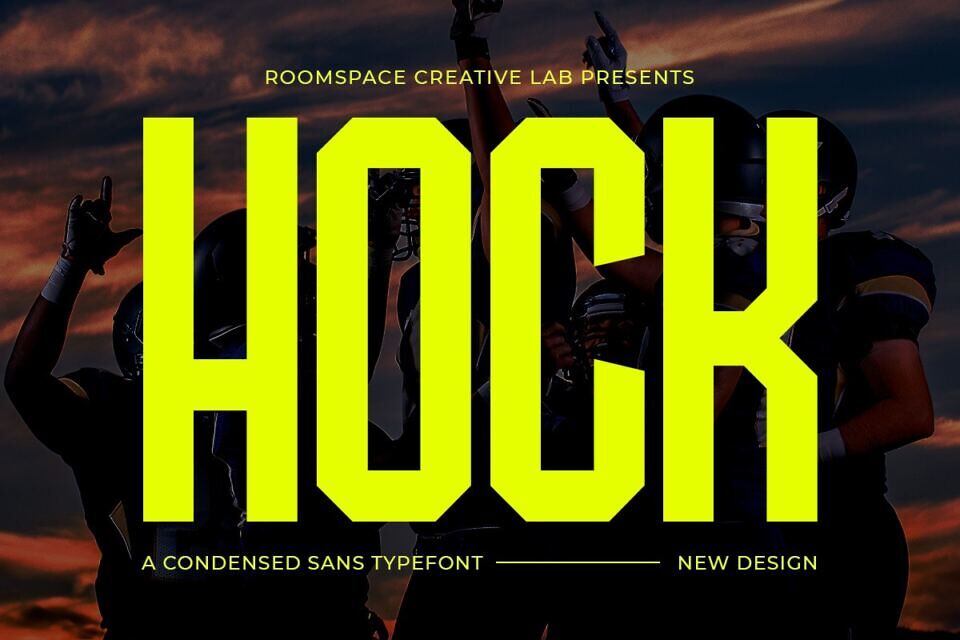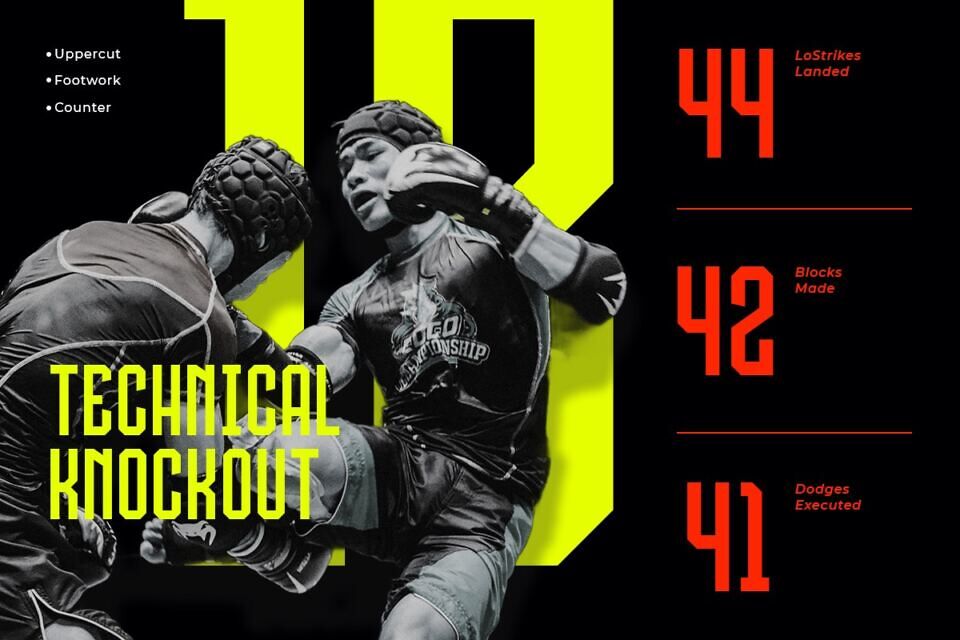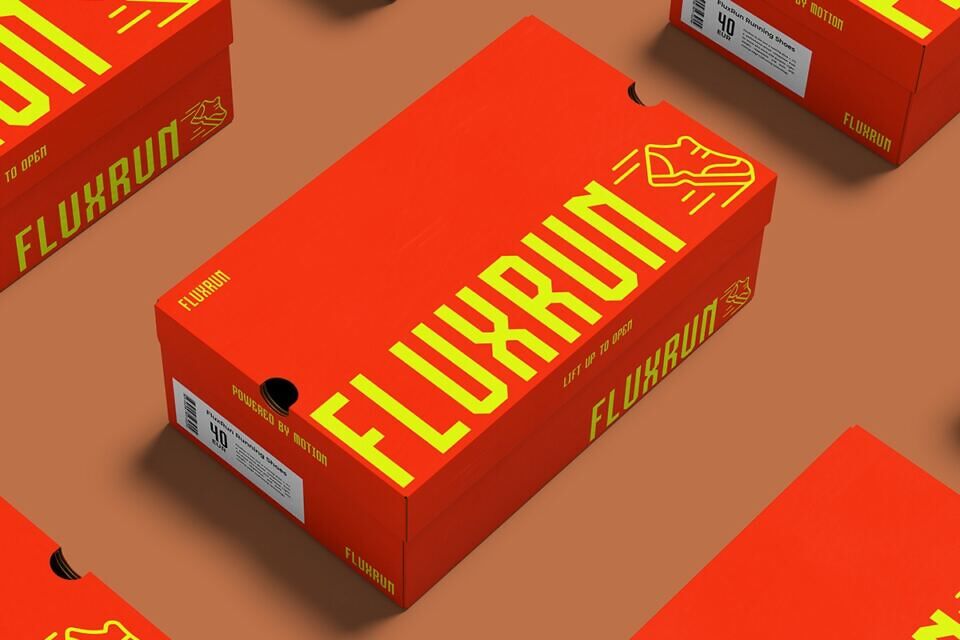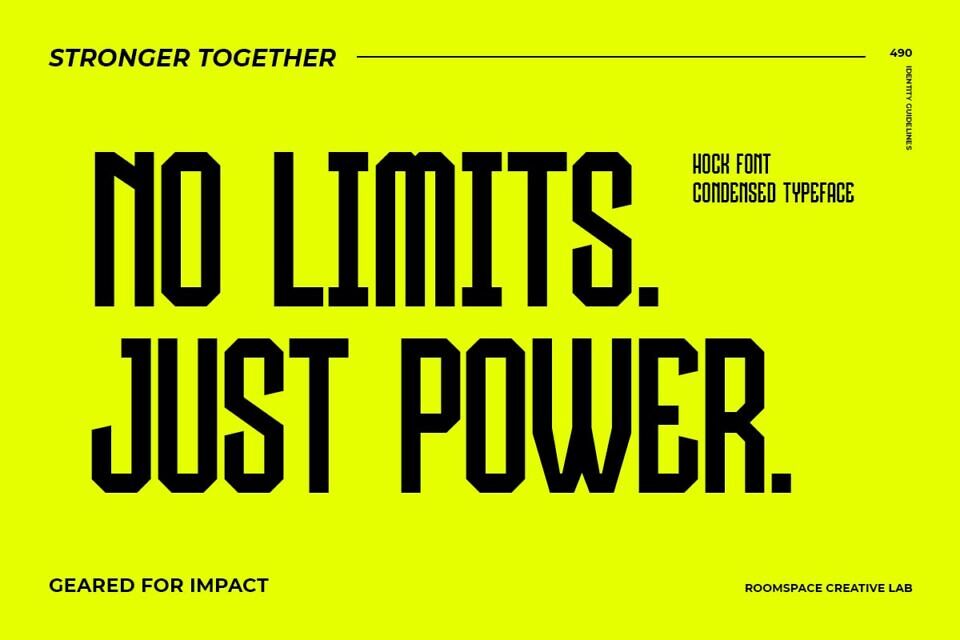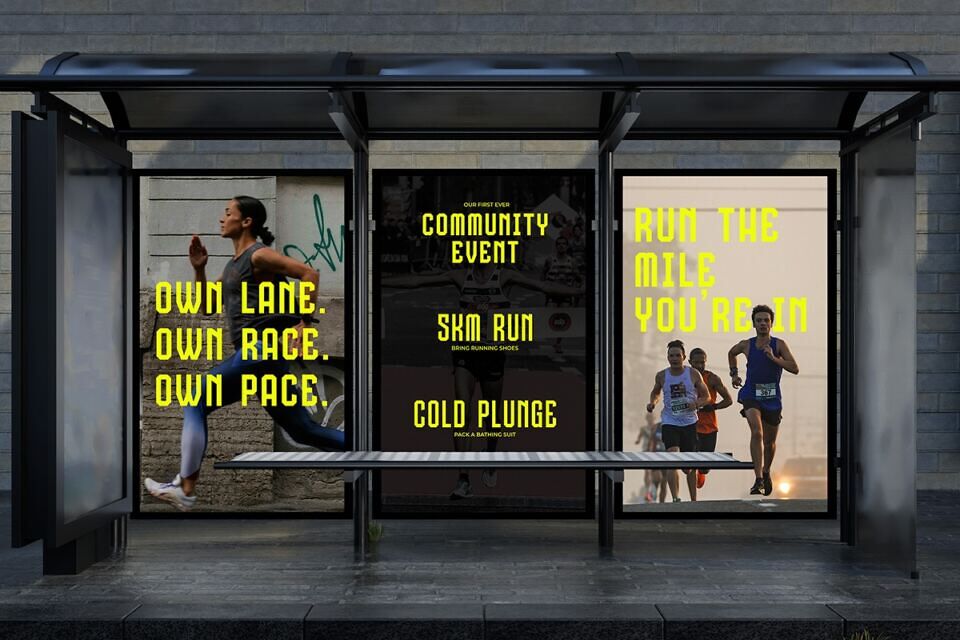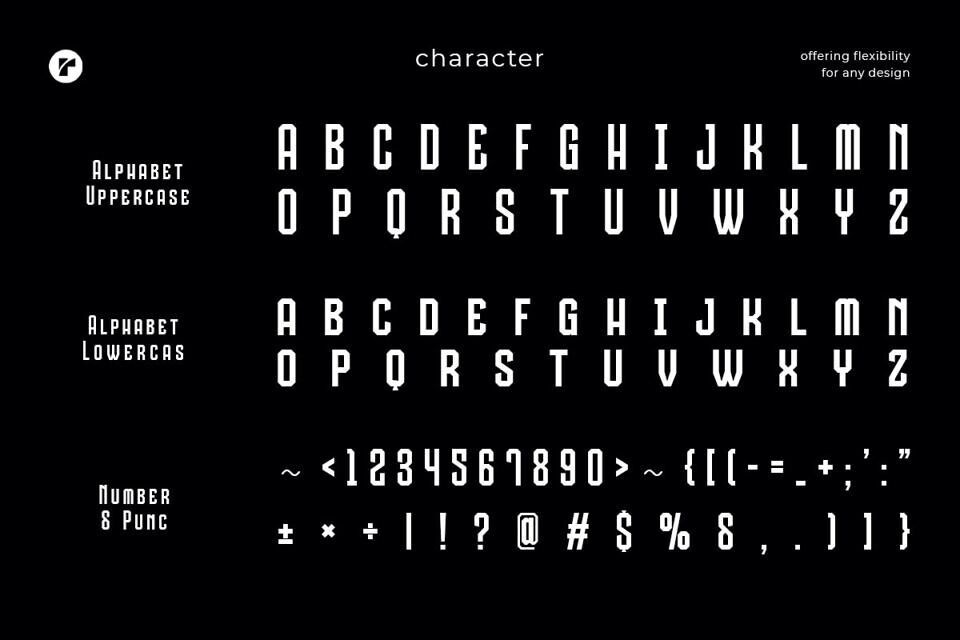
HOCK is a condensed sans-serif typeface engineered for high-impact visual messaging. With its tight, vertical proportions and sharp geometric forms, HOCK injects a sense of strength and tension into any layout. This makes it the ideal choice for athletic branding, action-themed designs, and anything that needs to hit hard and fast.
Its condensed structure allows designers to fit strong messaging into tight spaces without losing clarity or energy. HOCK is made for the hustle—where the pace is fast, the visuals are aggressive, and the stakes are high. The font thrives in sports marketing campaigns, fitness, team identities, and powerful typographic systems that require sharp consistency.